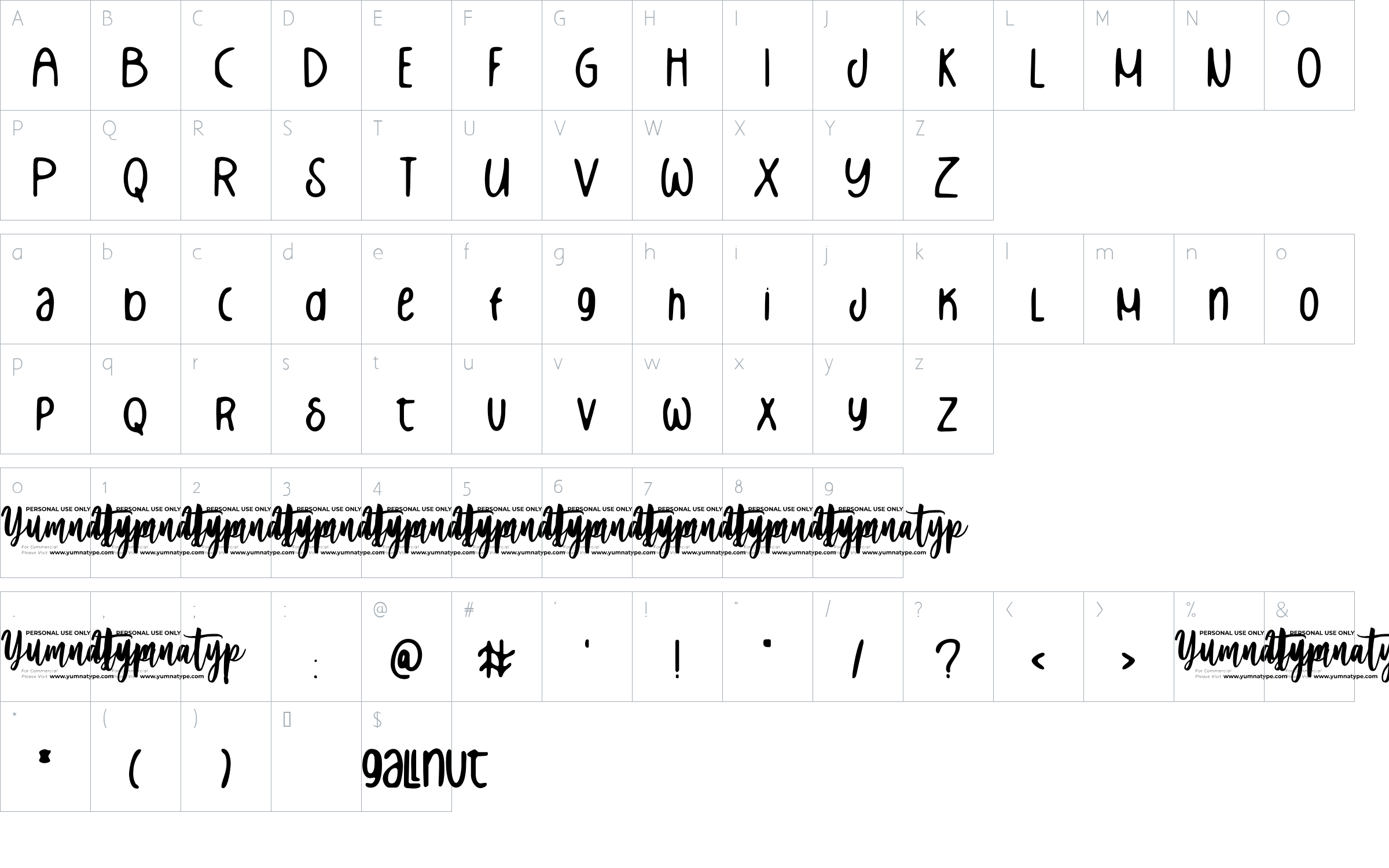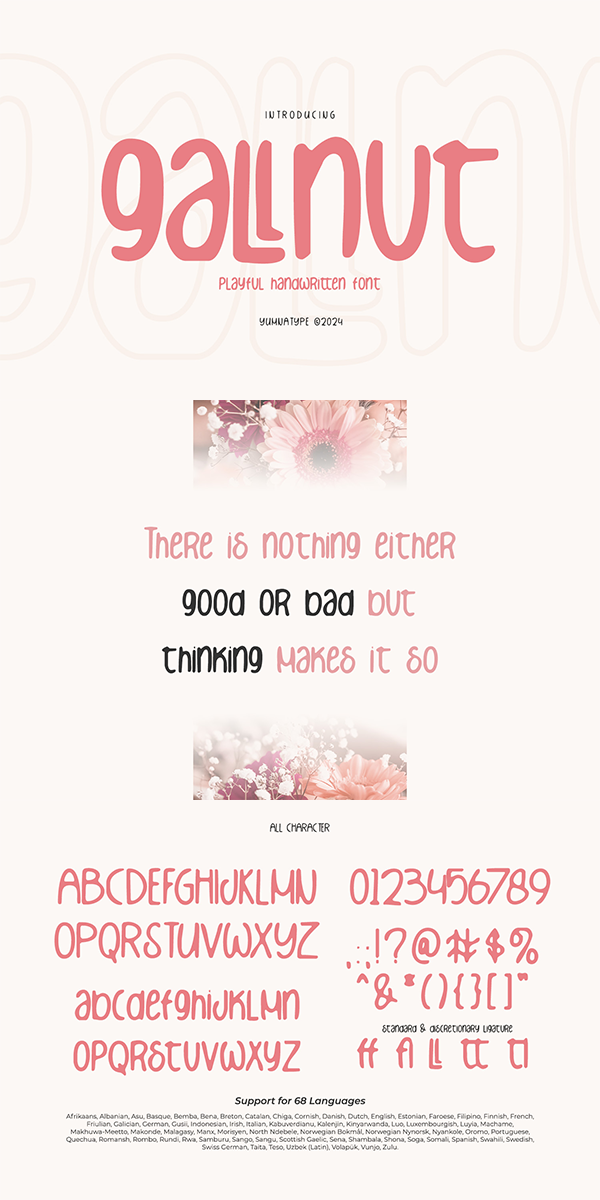
Gallnut Font
About Gallnut
Gallnut is a delightful handwritten font that exudes playful charm and whimsy. At its core, Gallnut is crafted with a playful hand-drawn aesthetic, capturing the spontaneity and warmth of handwritten lettering. Each character is imbued with character and personality, adding a unique touch to every word.
One of the key characteristics of Gallnut is its consistent proportions, ensuring that each letter maintains a harmonious balance with the others. This uniformity enhances readability and ensures that the text flows smoothly across the page. Combined with the low contrast between strokes, Gallnut offers excellent legibility, making it easy on the eyes even in longer passages of text. In addition, enjoy the features here.